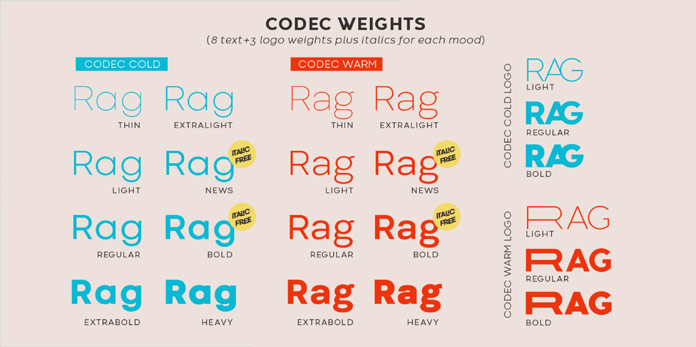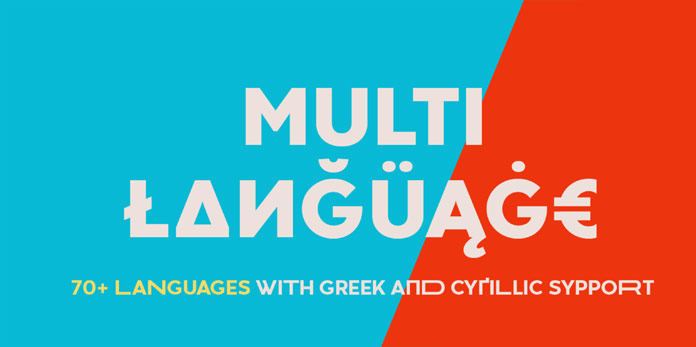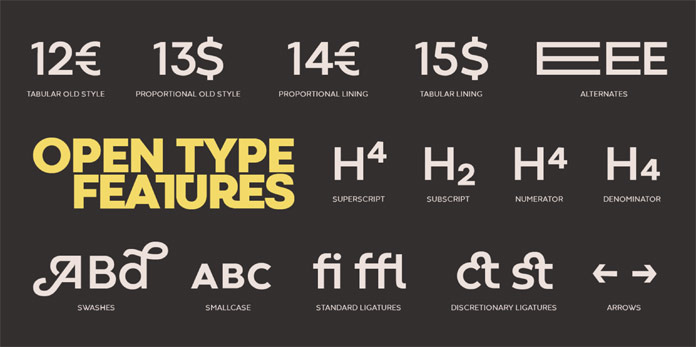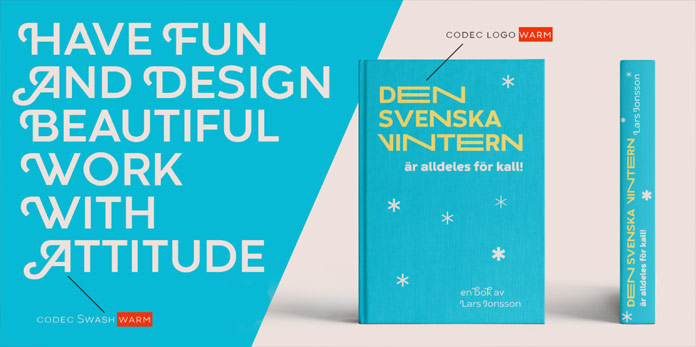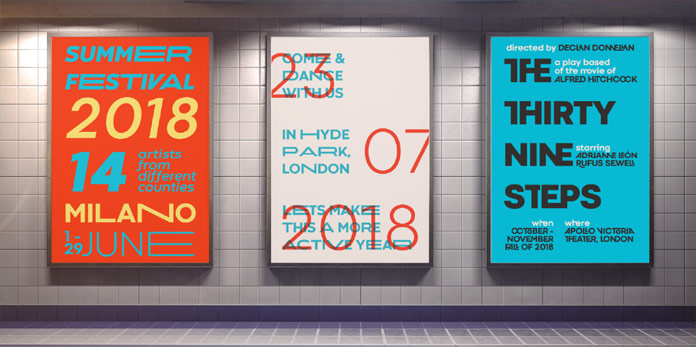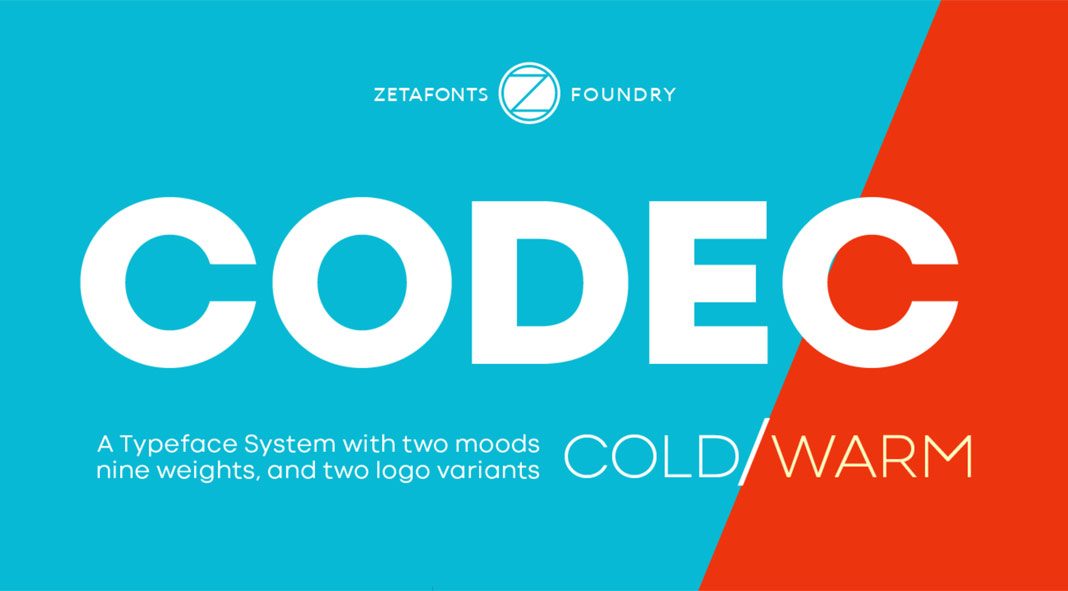
Codec, a geometric sans serif type system from foundry Zetafonts.
Designed by Cosimo Lorenzo Pancini, Francesco Canovaro, and Andrea Tartarelli, the Codec font family has been published in May 2018. It’s a unique type system that provides you with two coherent fonts (Codec Cold and Codec Warm), which are based on the same skeleton. Codec Cold comes with terminals that are always cut parallel or perpendicular to the baseline. This gives the typeface a more geometric and constructed look. Codec Warm has open diagonal cuts and two-storey letterforms giving the typeface a more humanist touch. Both typefaces come with a variety of weights as well as matching Italics. The family supports multiple languages including Cyrillic and Greek alphabets. The various OpenType features include small caps, positional numerals, swash forms as well as over a hundred of variant ligatures and alternate glyphs. For those who want to know more about this modern type system, please follow the link below.